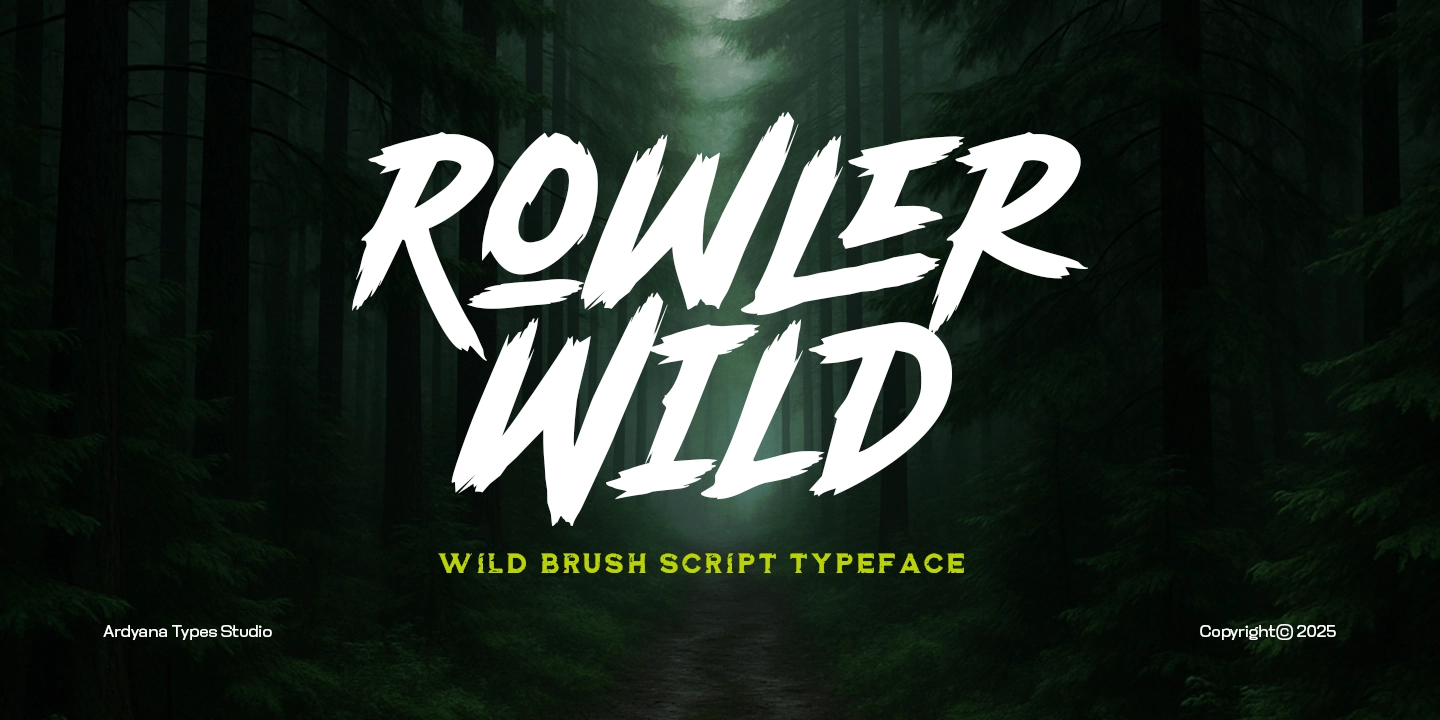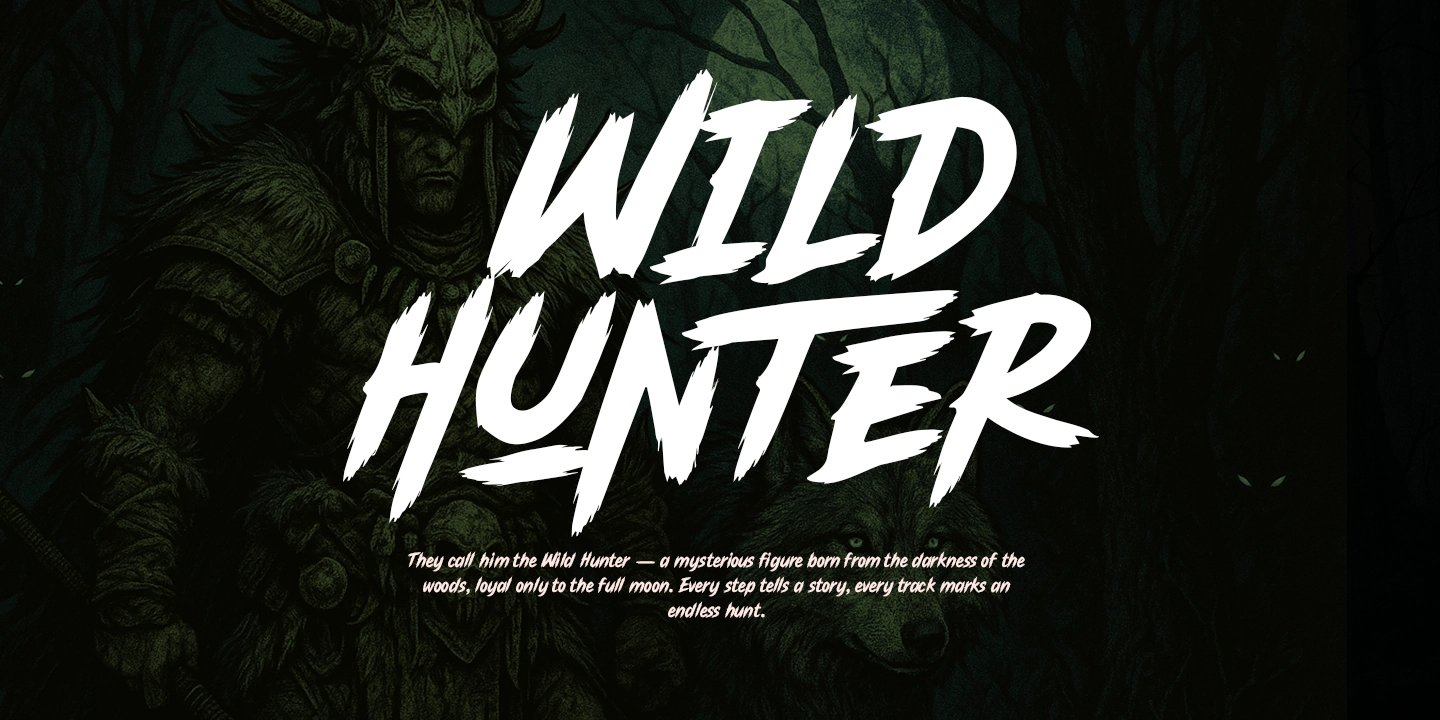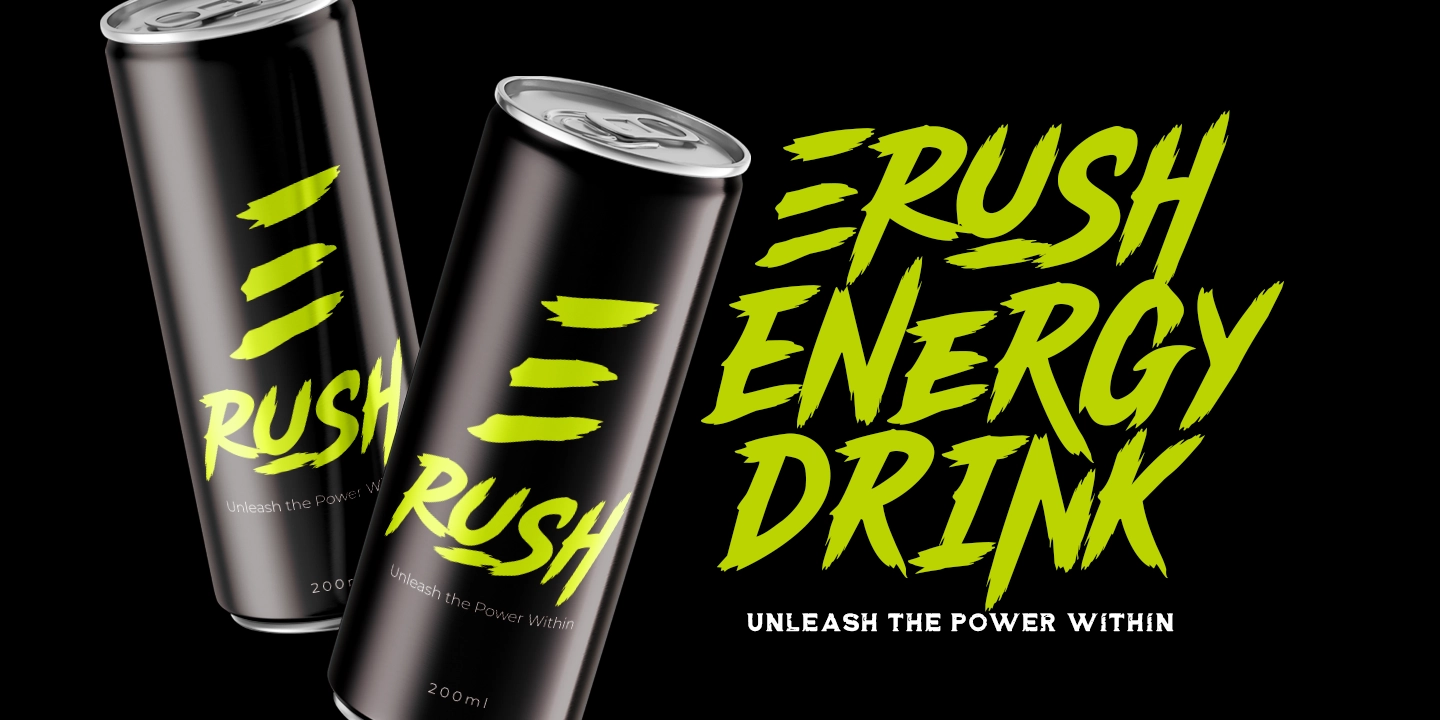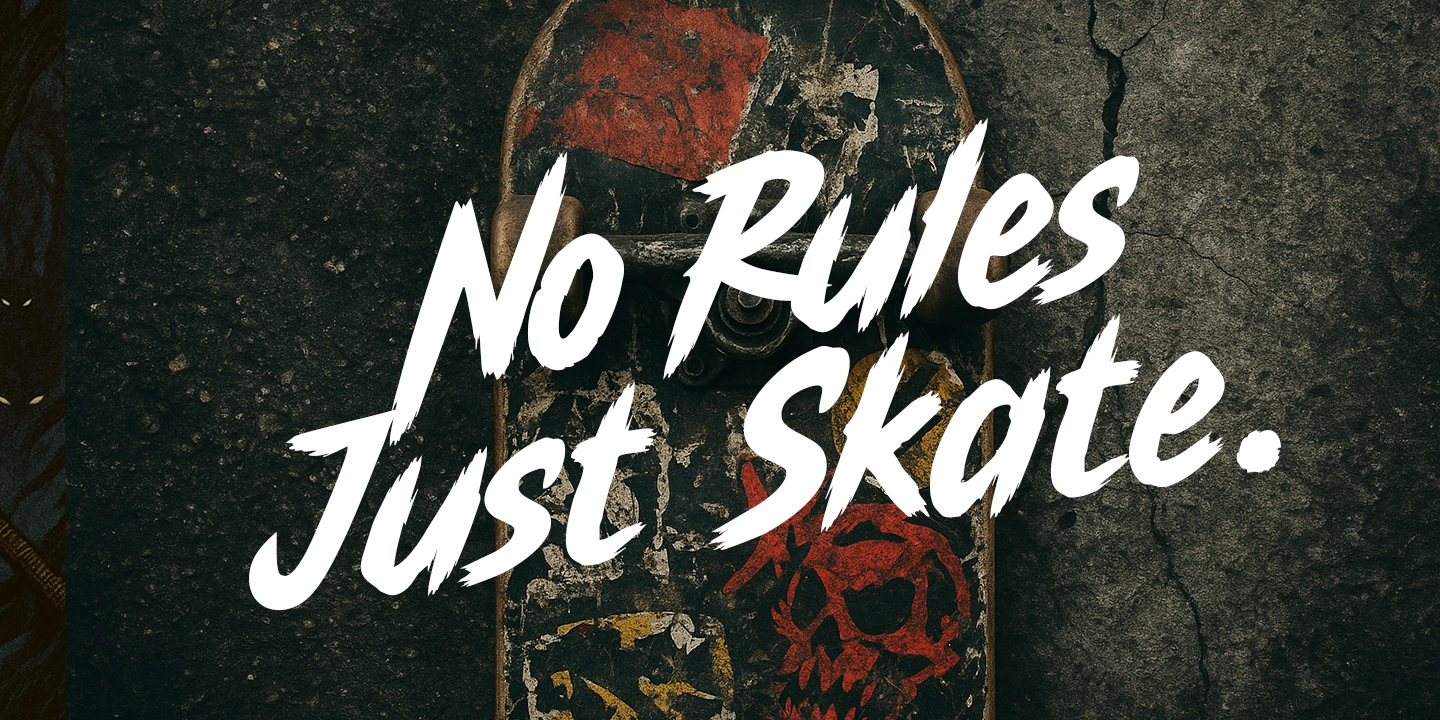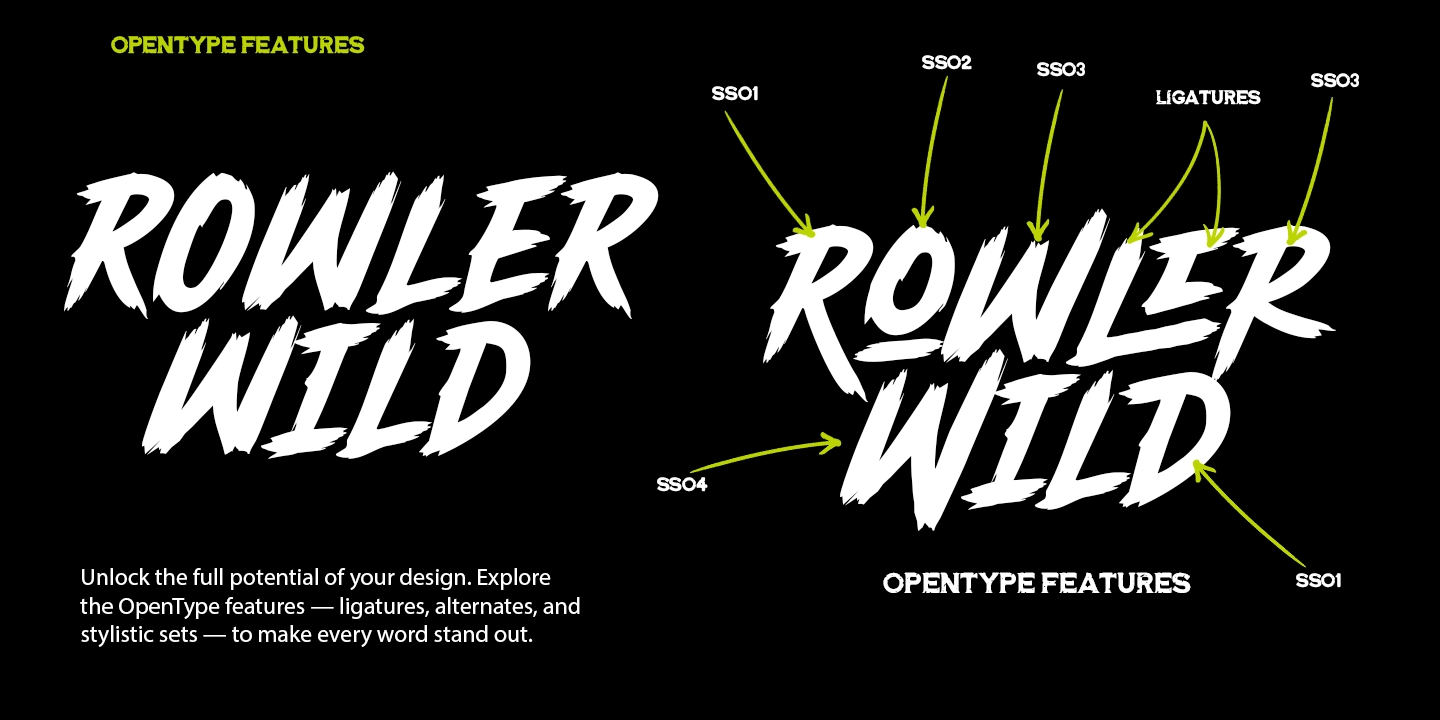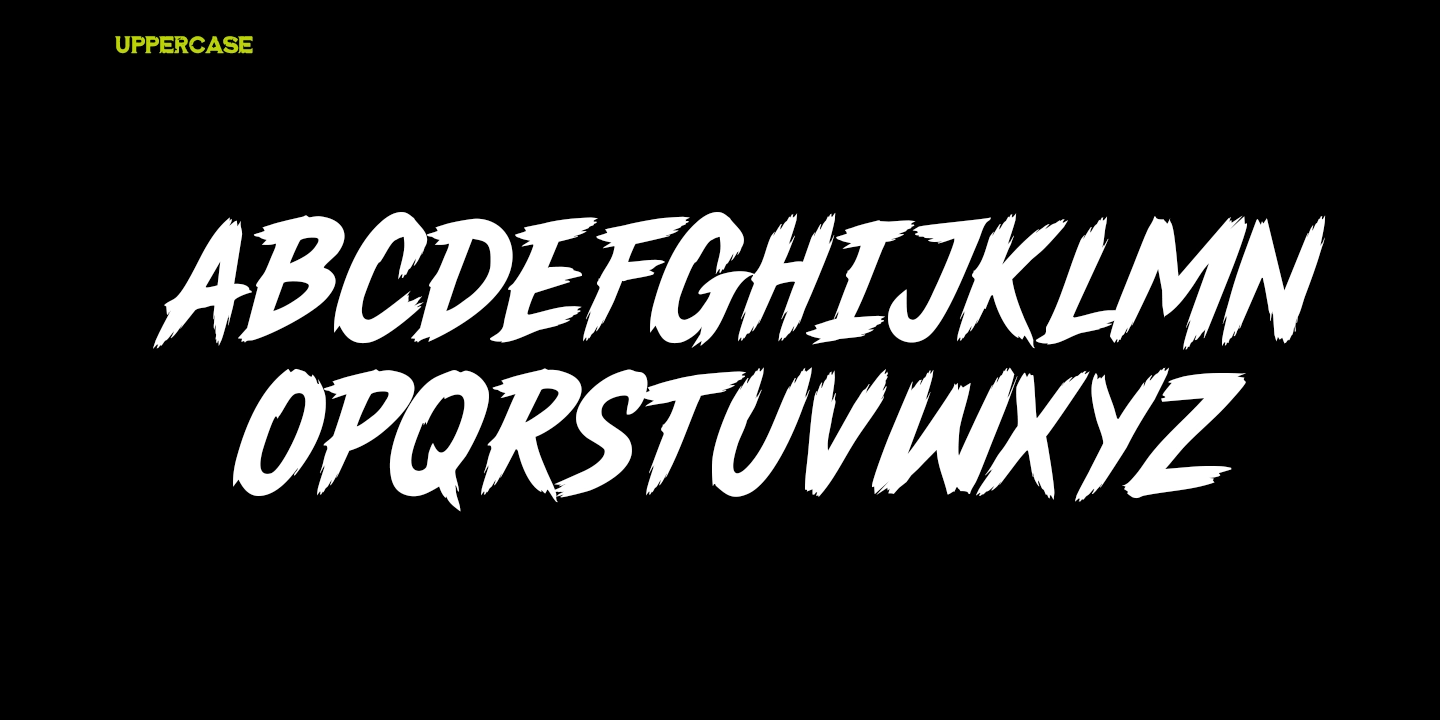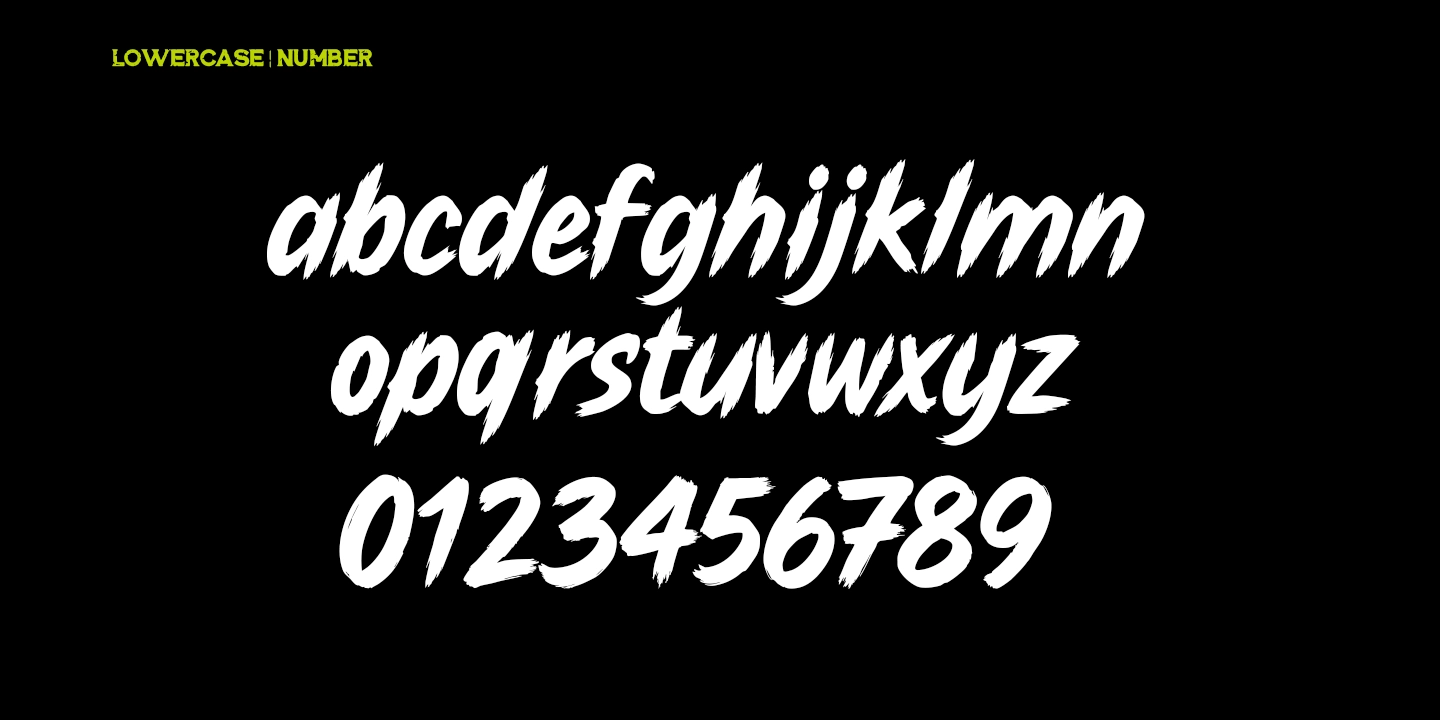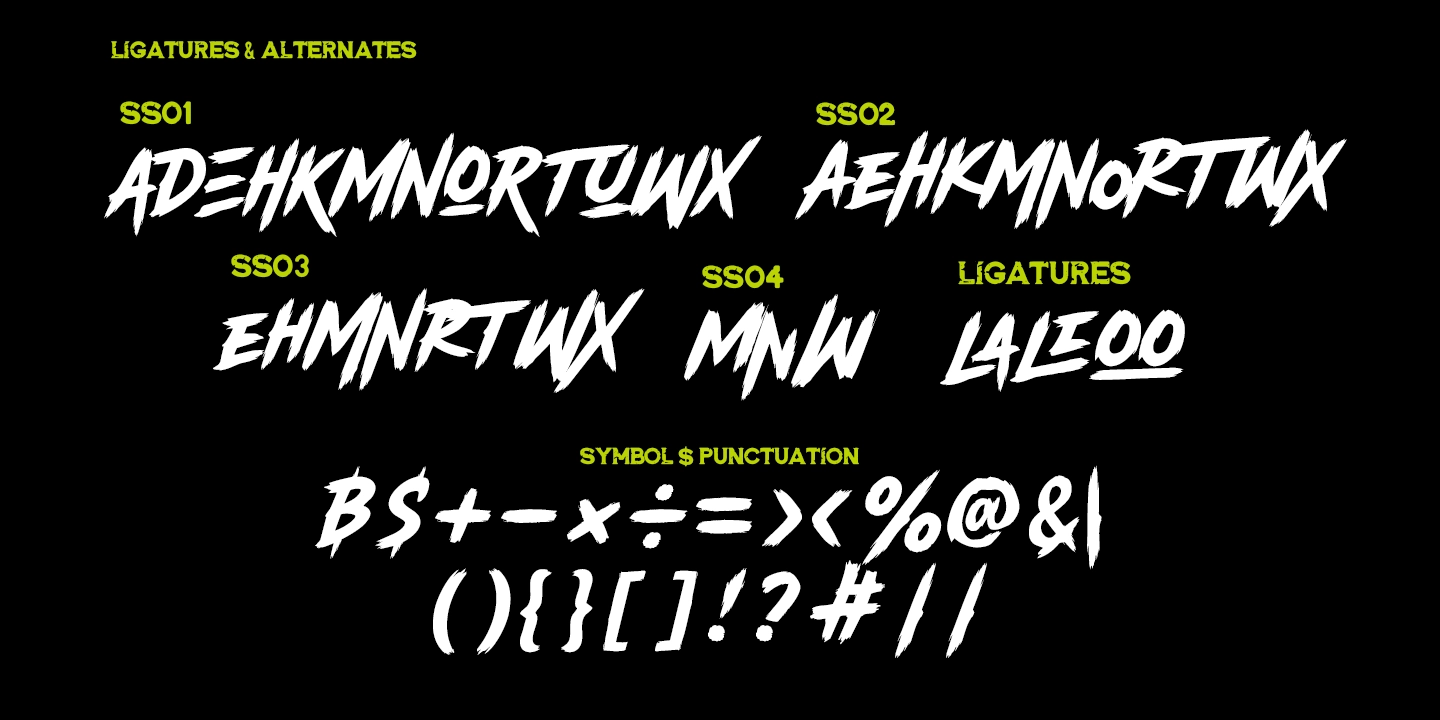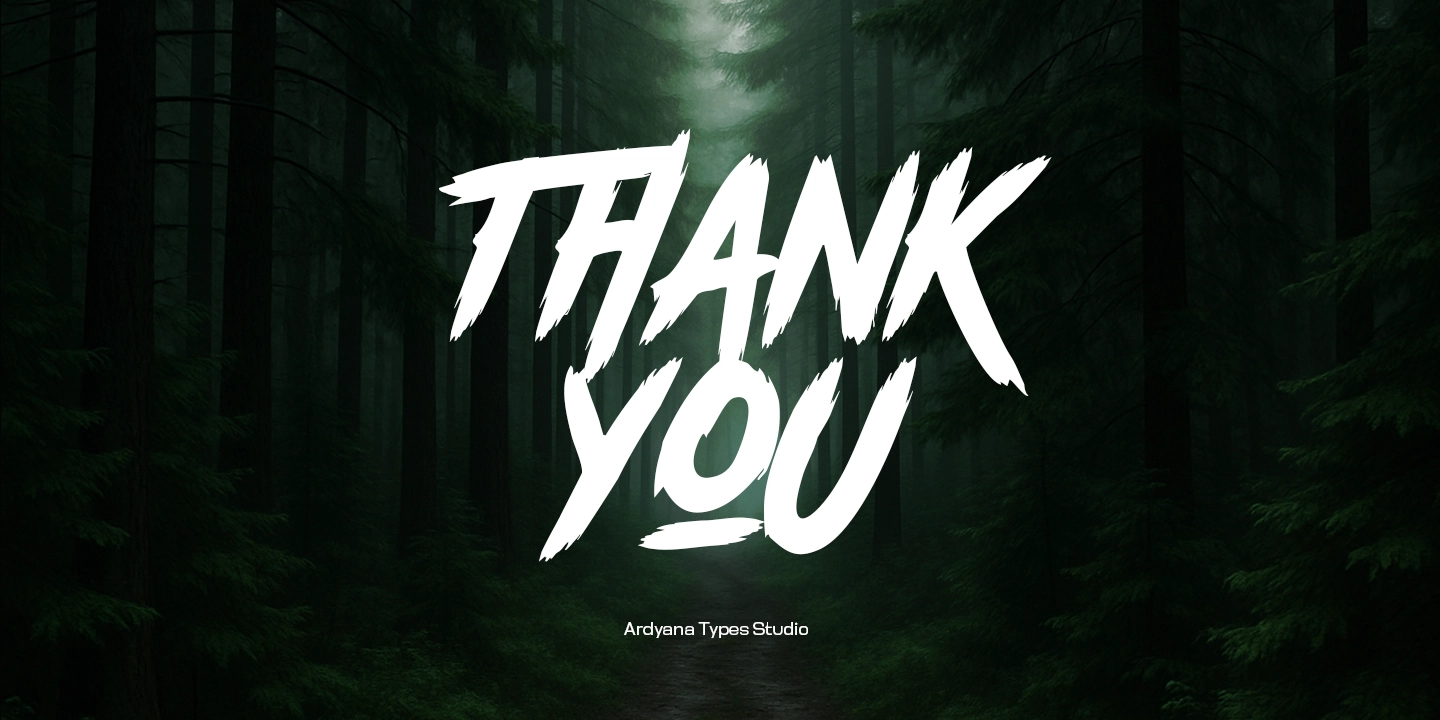
Rowler Wild
Rowler Wild is a bold brush script typeface born from raw energy, restless creativity, and the spirit of the wild.
Every stroke feels alive — rough, spontaneous, and full of motion — as if painted by hand on rugged canvas under the open sky. This font doesn’t whisper; it shouts with confidence and attitude.
Designed to capture a fearless, outdoor-inspired aesthetic, Rowler Wild brings a sense of authenticity and adventure to your typography. Its imperfect brush texture adds a human touch, making every word feel crafted rather than constructed. Whether you’re creating bold logos, energetic posters, apparel graphics, product packaging, or sports and music branding, this font instantly sets your design apart with untamed personality.
Rowler Wild works best when you want your message to stand out — raw, expressive, and powerful. It’s perfect for projects that embrace freedom, motion, and individuality.
The dynamic flow of its letters gives it versatility: combine uppercase for loud statements or mix with lowercase for a more natural, handwritten look.
It’s not just a typeface — it’s an attitude.
A visual roar that brings energy to your brand and wildness to your message.
So whether you’re designing for a streetwear label, an adventure brand, or a creative poster that needs bold emotion — Rowler Wild is ready to break the rules and lead your design into the wilderness.